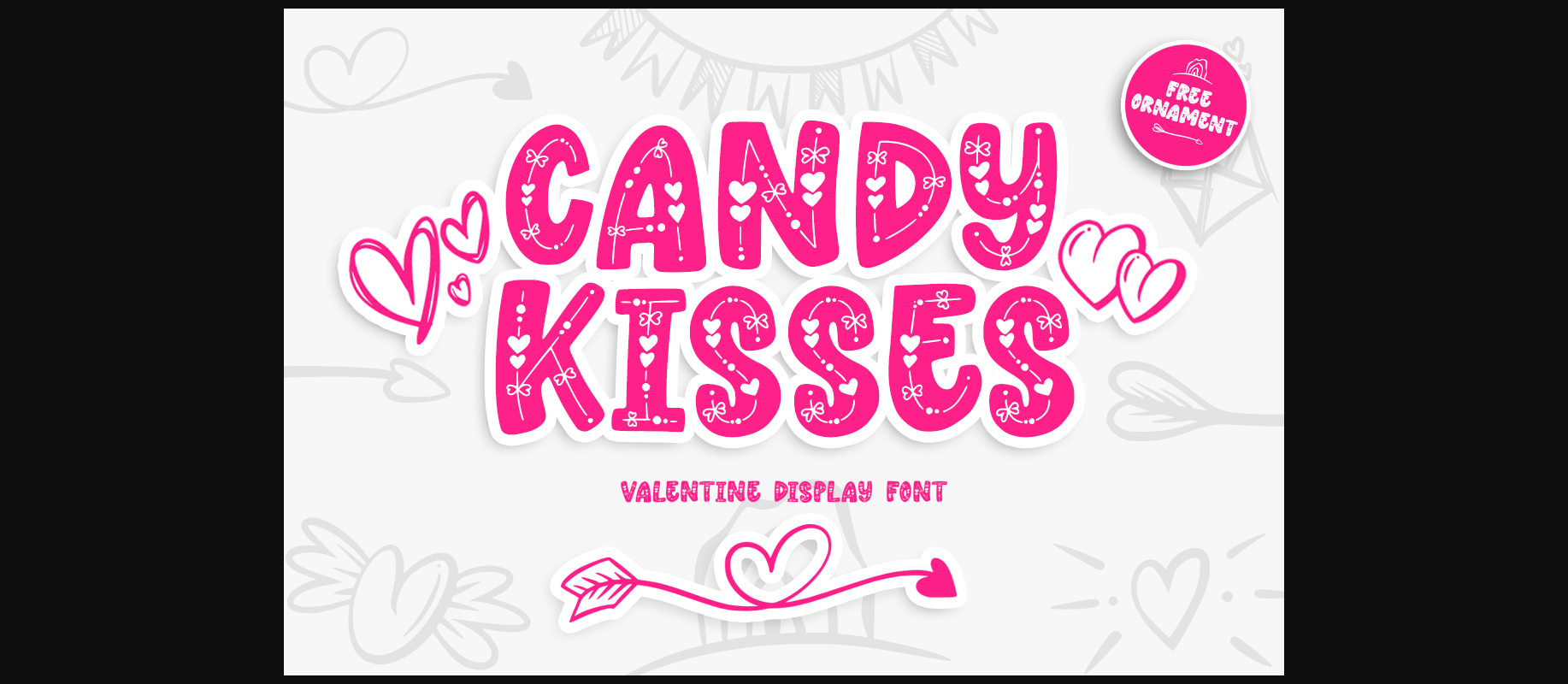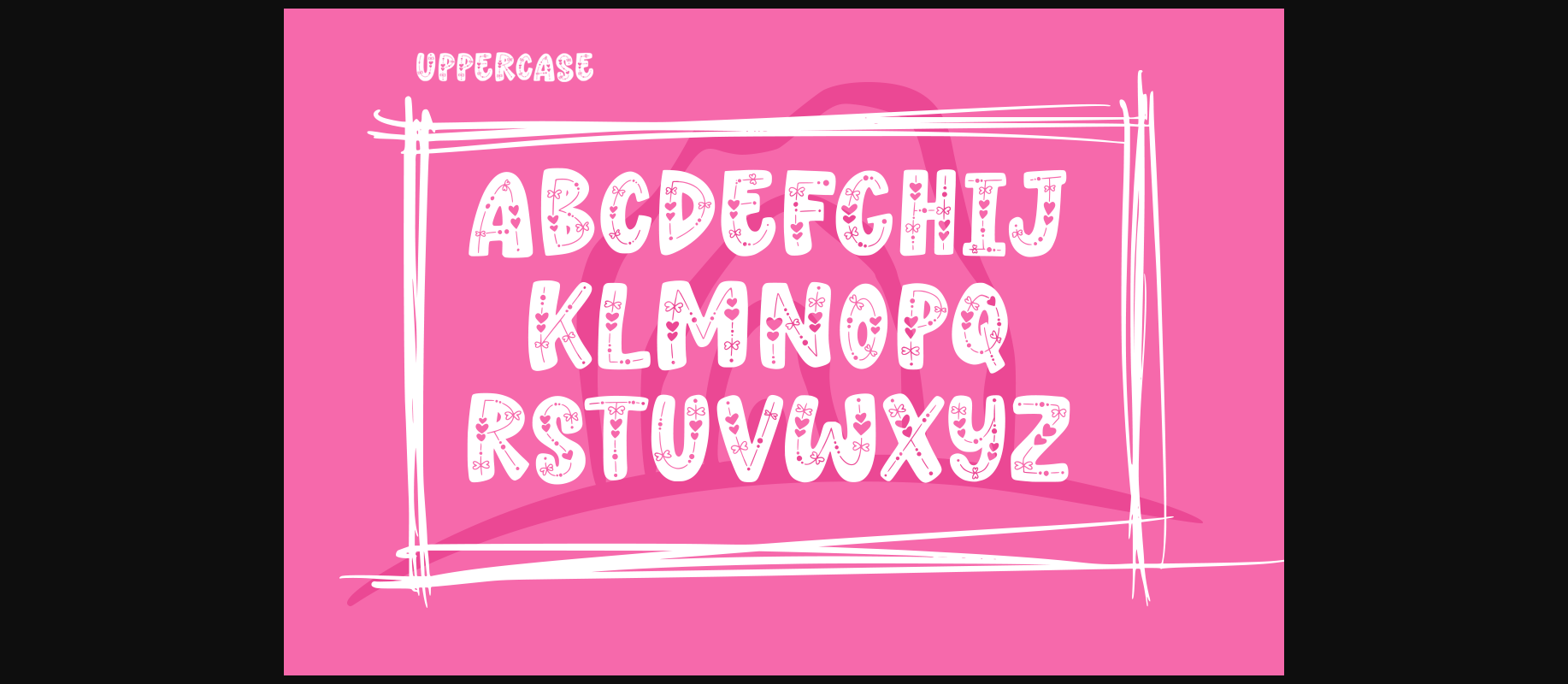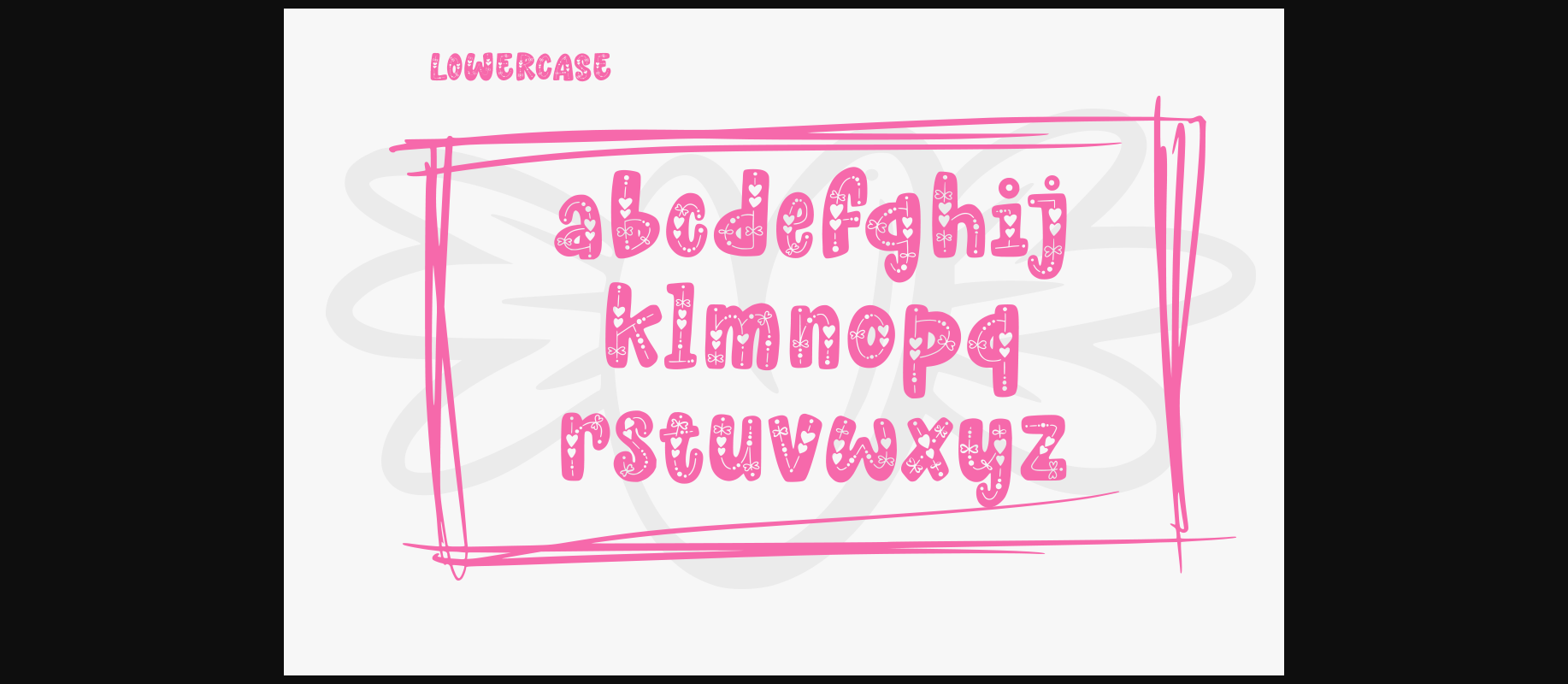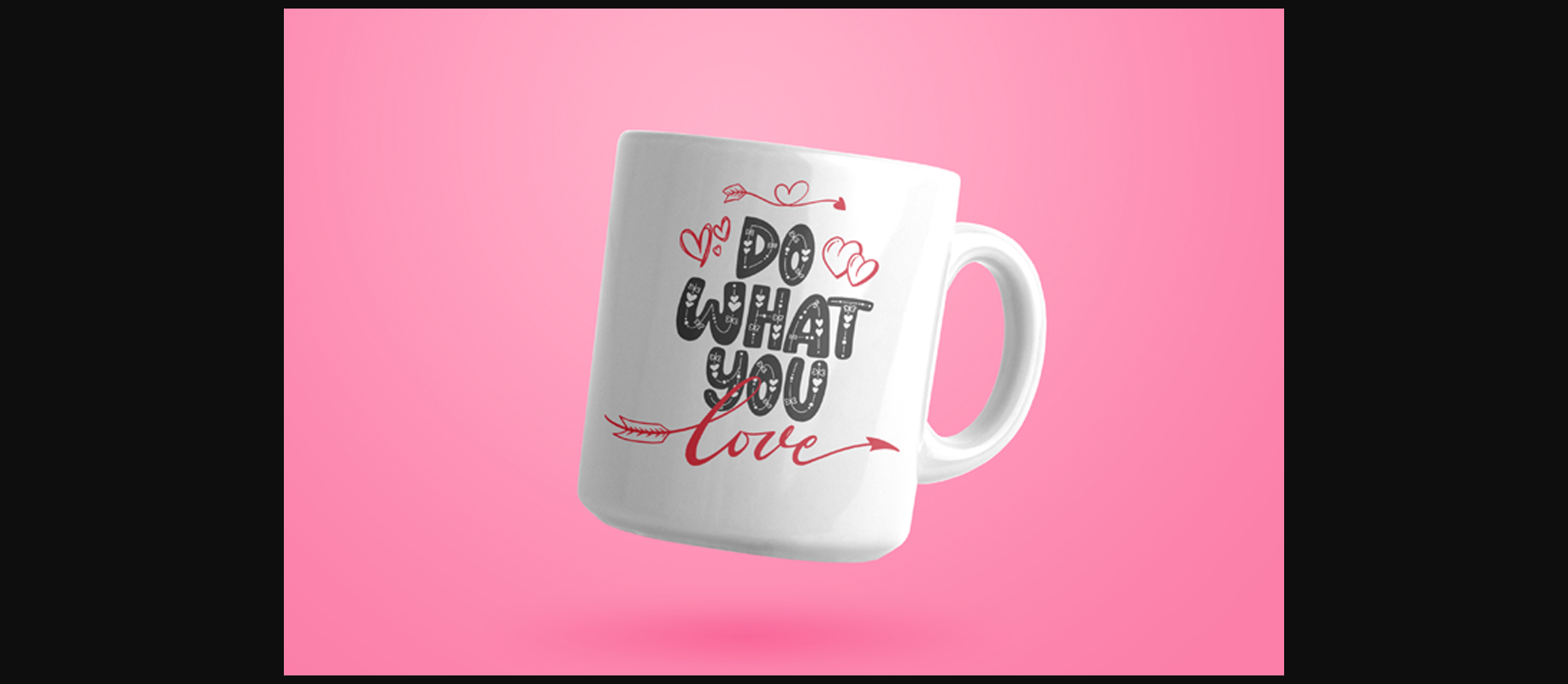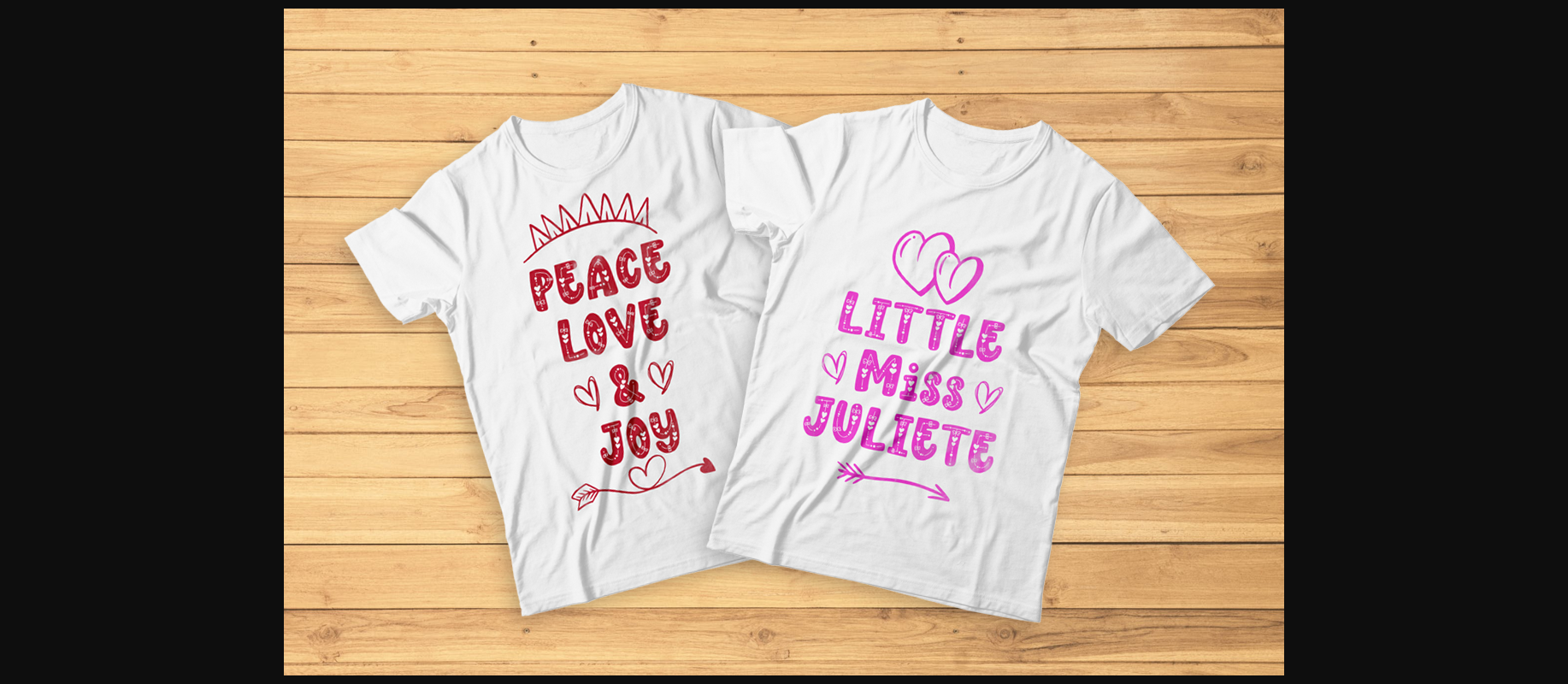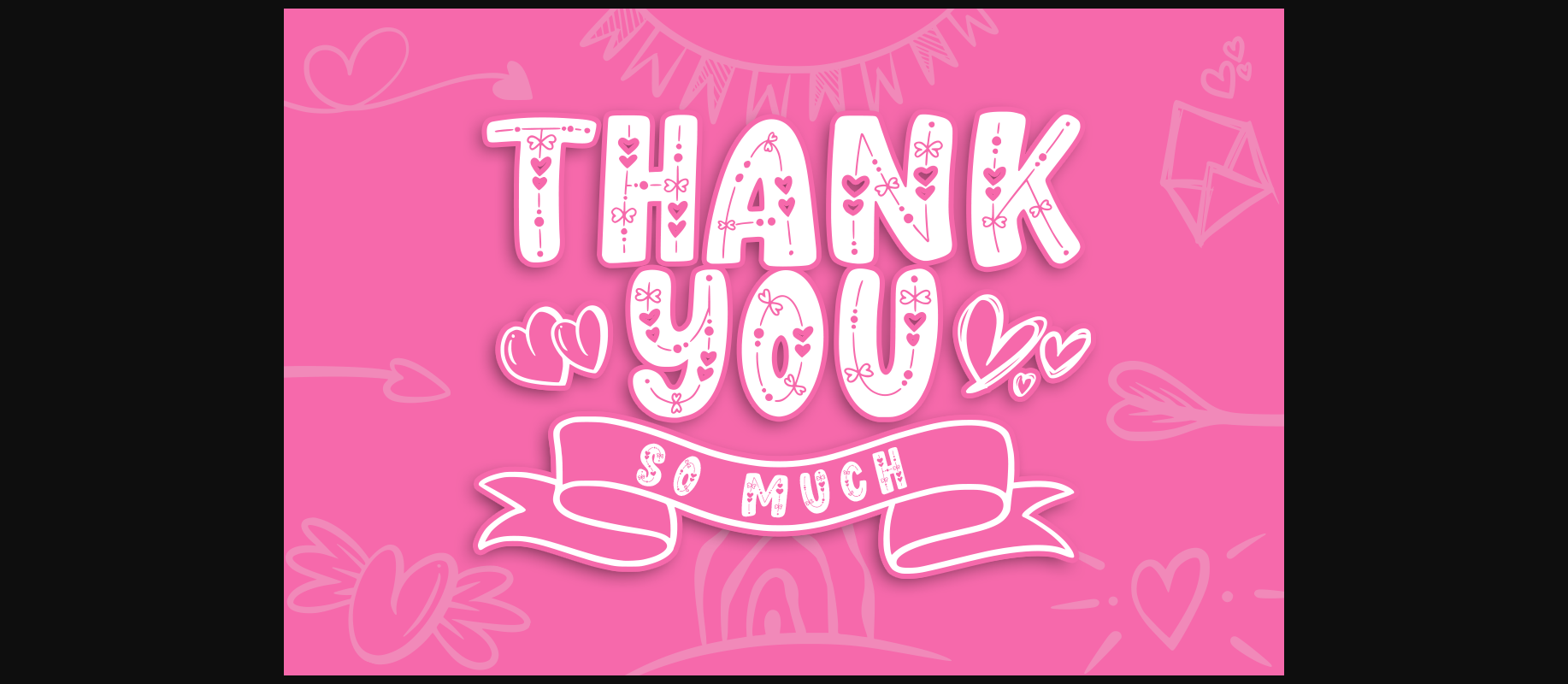
Candy Kisses Valentine Font
About Candy Kisses Valentine Font
Candy Kisses Valentine is a casual and thick lettered decorative font. It has a playful feel that will turn any Valentine crafting idea into a true standout.